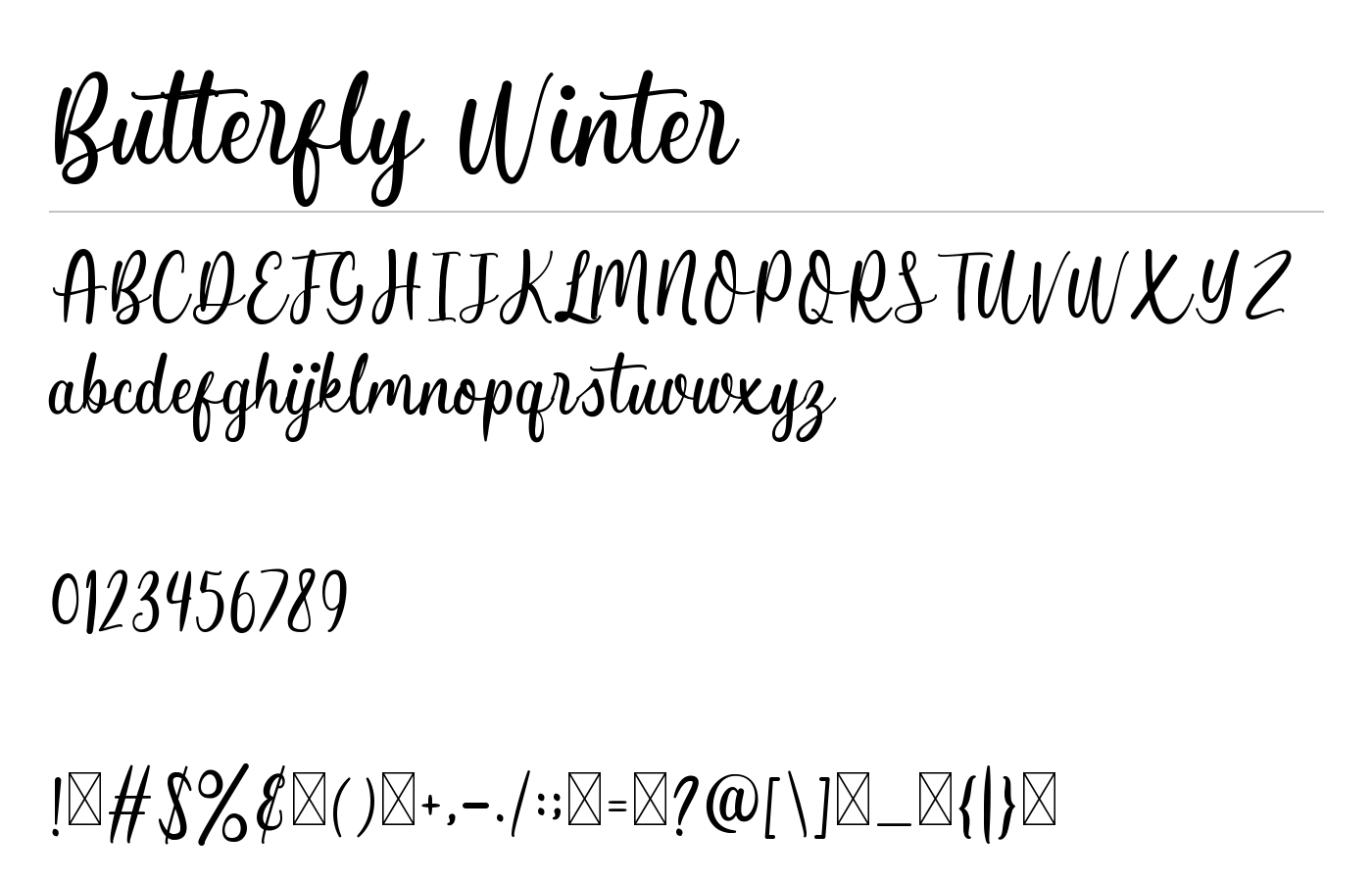
Butterfly Winter is a lively and elegant script font with a handwritten charm, featuring smooth, flowing strokes and a moderate contrast in thickness that create a natural, warm feel. Its clean and slightly whimsical letterforms, combined with a moderate x-height and clear legibility, make it perfect for branding, invitations, and creative projects seeking a friendly yet stylish touch. This font works well in headlines and decorative text, adding an inviting and personal vibe to any design.
Butterfly Winter Font
About Butterfly Winter Font
| Font family | Butterfly Winter Font |
| Designer | Virgiawan Liswanto |